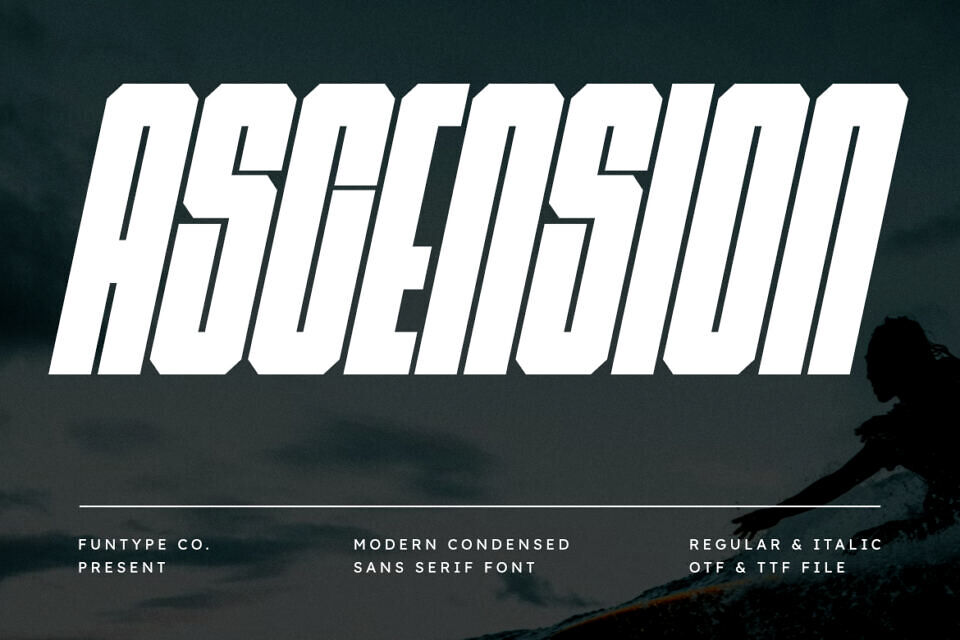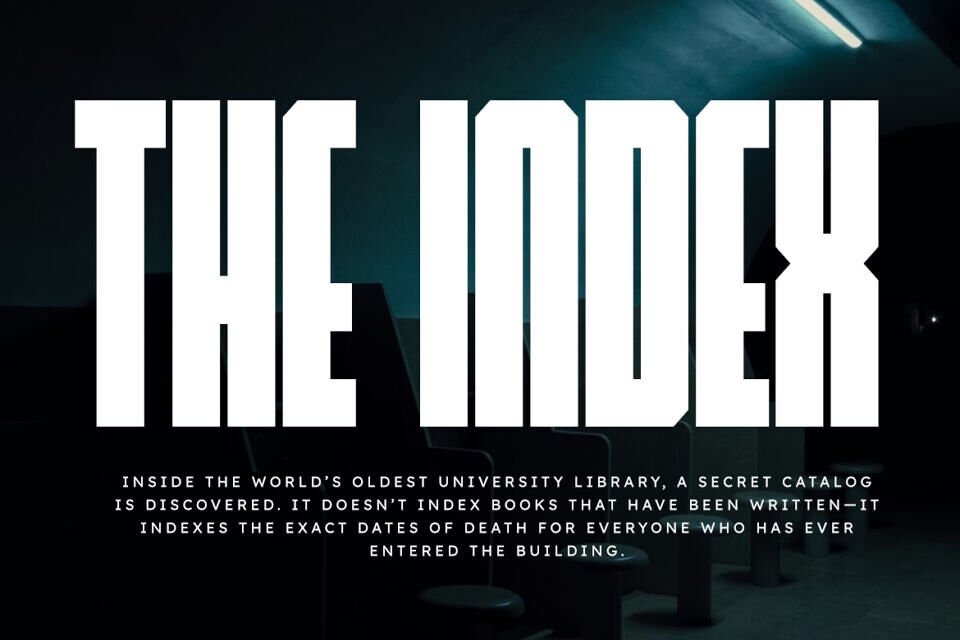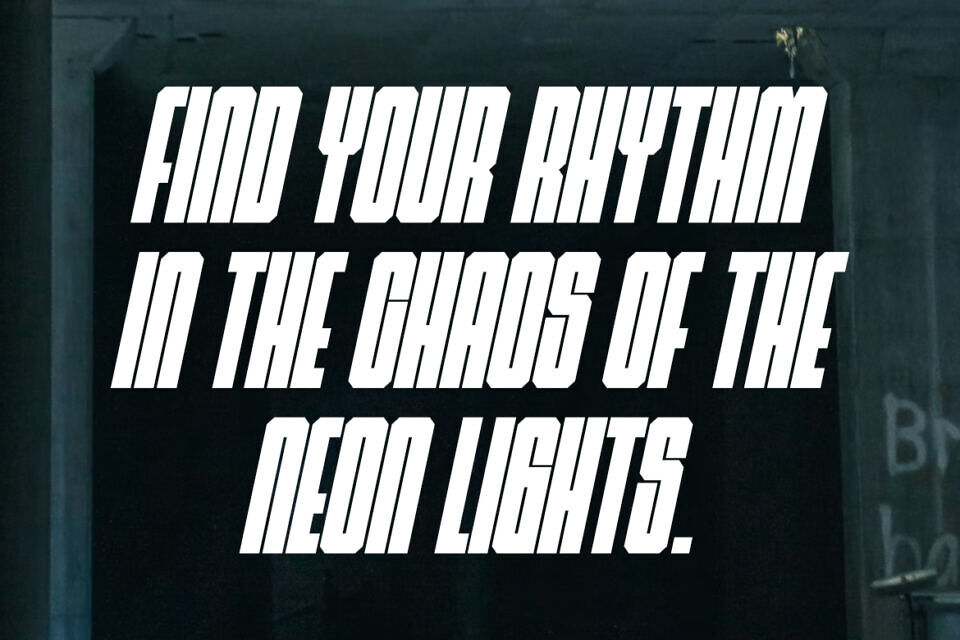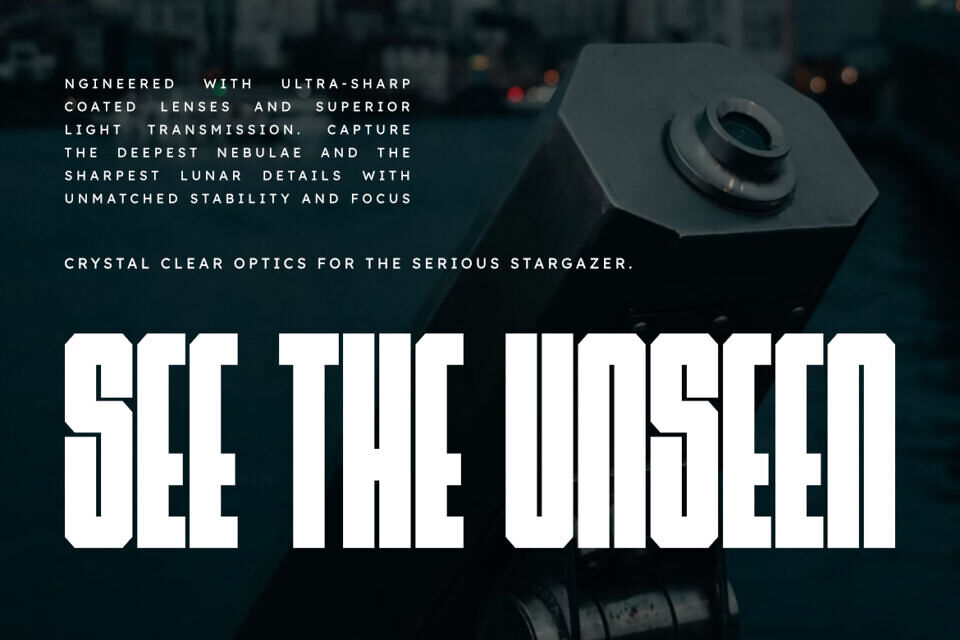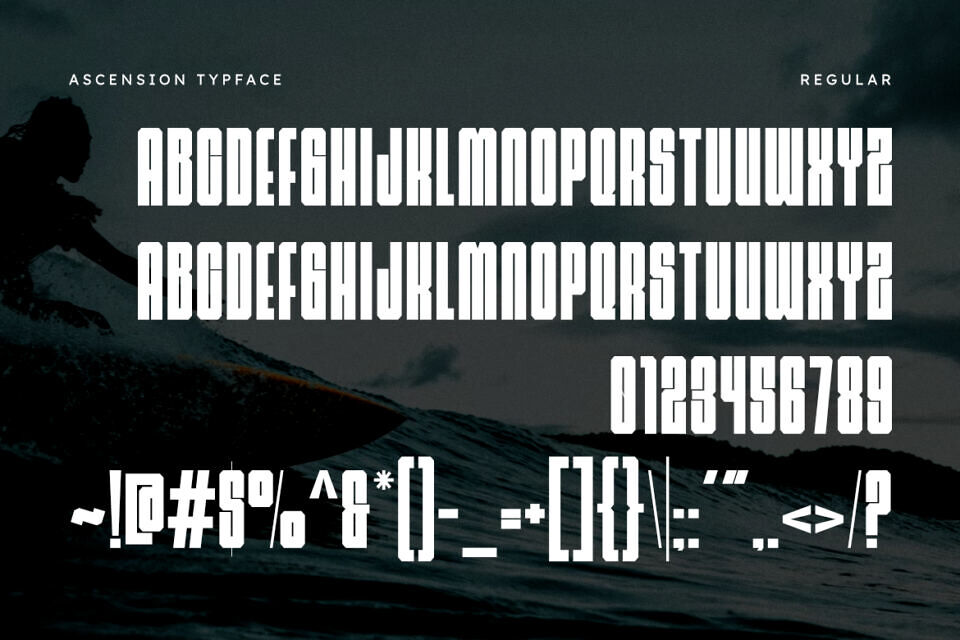
Ascension is a high-impact, condensed sans serif typeface designed for speed, power, and modern aesthetics. Built with sharp geometric angles and a tall, commanding structure, Ascension is the perfect typographic solution for projects that require a bold and authoritative presence.
This font is an All Caps powerhouse, specifically engineered for dominant headlines and aggressive branding. The family includes both Regular and Italic versions, allowing you to create a dynamic sense of motion and professional hierarchy. Whether you are designing for professional sports, automotive industries, or high-energy e-sports, Ascension delivers a sleek and uncompromising look.